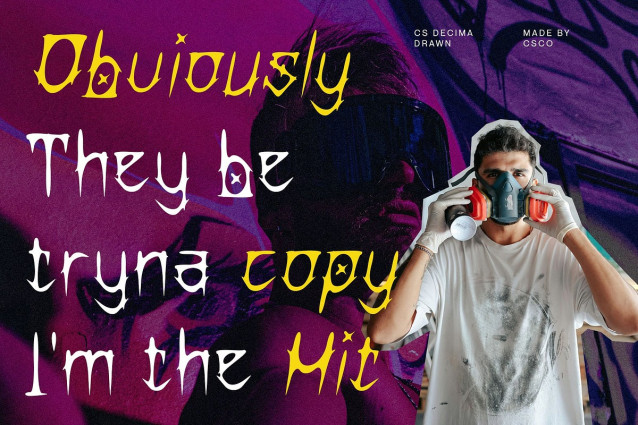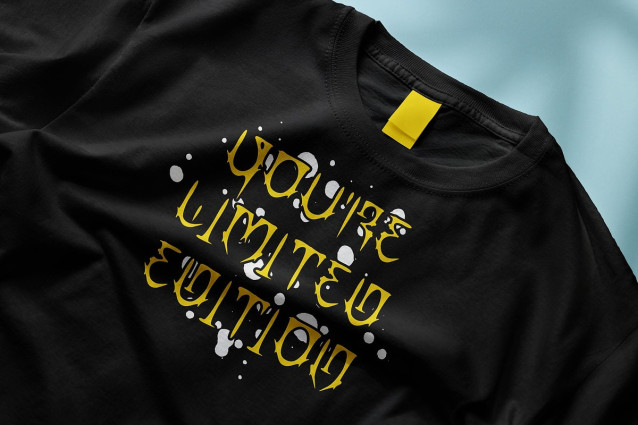
CS Decima Drawn Font
CS Decima Drawn Font is a bold and expressive display font rooted in the iconic style of Chicano graffiti. With its elaborate strokes, striking shapes, and urban personality, this font captures the raw energy and visual power of street lettering traditions.
Drawn Effect for Authentic, Handcrafted Style Enhanced with a unique drawn effect, each letterform carries the essence of hand-rendered artistry. The handcrafted texture adds a gritty and organic feel, giving the font a real-world, tactile presence. This quality makes it feel both personal and powerful, ideal for projects where character and authenticity are essential.
Funky, Cultural, and Expressive Design Language CS Decima Drawn’s funky and energetic style channels bold self-expression and artistic freedom. Influenced by graffiti’s visual language, it blends cultural roots with a creative edge—making it perfect for projects that celebrate diversity, individuality, and bold storytelling.
Perfect for Urban-Themed and Artistic Projects Whether you’re designing for music visuals, fashion campaigns, posters, or street-style branding, this unique font delivers a unique voice. Its urban aesthetic and rich character make it a go-to typeface for creatives who want to stand out with an expressive, streetwise flair. Bring your visuals to life with a font that speaks volumes and radiates visual strength.